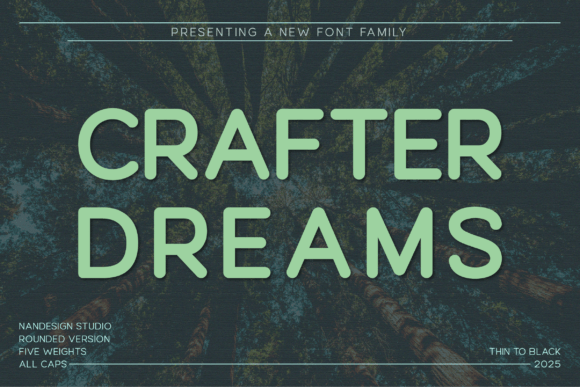
Bring Your Creative Projects to Life with the Perfect Font
Imagine you’re sipping your morning coffee, surrounded by scattered papers, and a blank computer screen staring back at you. You’re about to start a new design project, and the pressure is on to create something amazing. In this moment, you need a font that’s not only visually stunning but also gets the message across with clarity and warmth. That’s where the Crafter Dreams Rounded Font comes in – a modern all-caps sans serif font family designed to bring your creative visions to life.
This versatile font family, with its five weights, is a game-changer for designers, crafters, and brand creators. It’s the perfect blend of legibility and aesthetics, making it an invaluable addition to your design toolkit. Whether you’re building a logo, creating packaging design, or crafting social media visuals, the Crafter Dreams Rounded Font adapts beautifully to your needs, adding a polished and confident touch to your work.
Crafter Dreams Rounded Font Key Features
- Size: 1000 glyphs, ensuring a comprehensive character set
- Rounded Design: Unique rounded edges and curves for a friendly, approachable feel
Crafter Dreams Rounded Font Review
At first glance, Crafter Dreams Rounded Font appears to be a delightful addition to any design project. The rounded edges and playful feel evoke a sense of whimsy and charm. ✨ I appreciate how the font effectively conveys a sense of approachability and friendliness.
Some notable strengths of Crafter Dreams Rounded Font include:
- ✨ Excellent legibility, even at smaller font sizes
- ✨ A wide range of available weights and styles to suit various design needs
- ⚠️ Limited language support, which may not be ideal for projects requiring multilingual text
- ⚠️ Not as suitable for formal or corporate branding, as it may come across as too playful or informal
- ⚠️ Some users may find the font’s rounded edges too simplistic or lacking in sophistication
Overall, Crafter Dreams Rounded Font is a solid choice for projects requiring a friendly, approachable feel. While it may not be the best fit for every design need, it’s certainly a versatile and well-designed option. With some careful consideration of its limitations, I’d recommend giving it a try for the right project.
For the best results, use the Crafter Dreams Rounded Font in conjunction with other rounded font styles to create a cohesive look. Experiment with different font sizes and colors to add depth and visual interest to your design.
The Crafter Dreams Rounded Font is ideal for use in creative and playful designs such as:
– Brochures and flyers
– Wedding invitations
– Children’s educational materials
– Branding and marketing materials